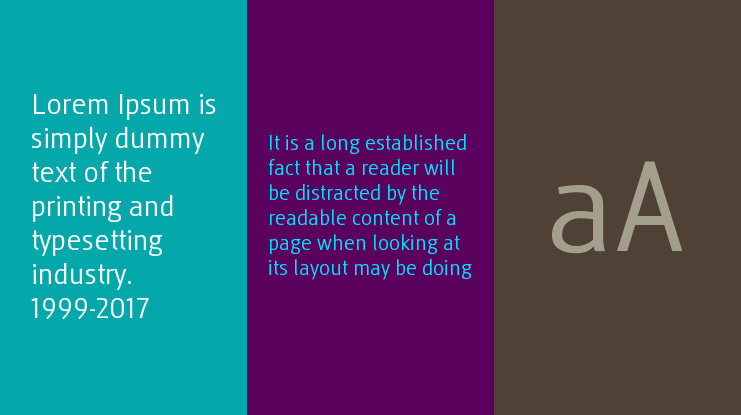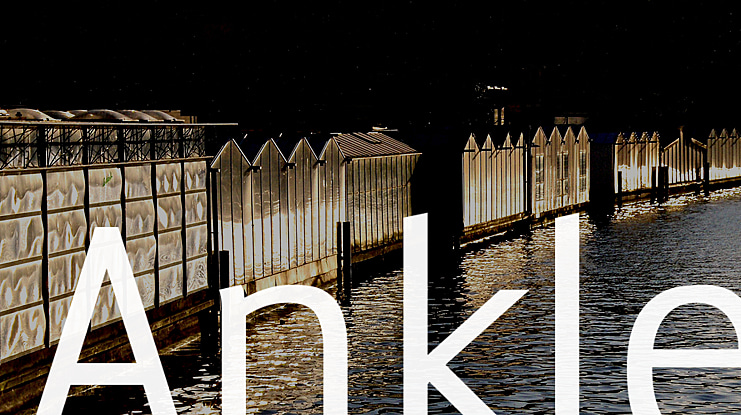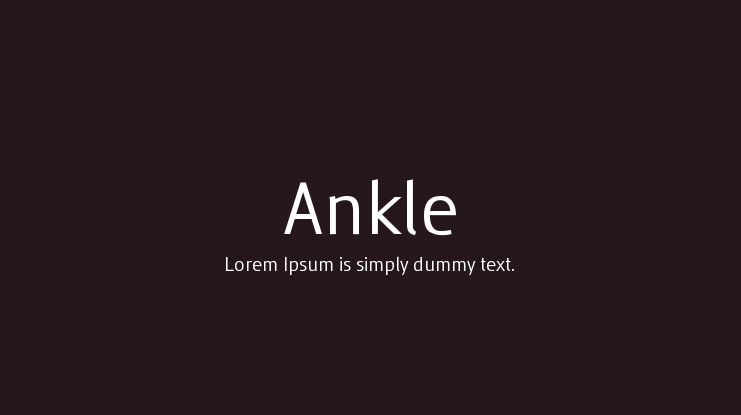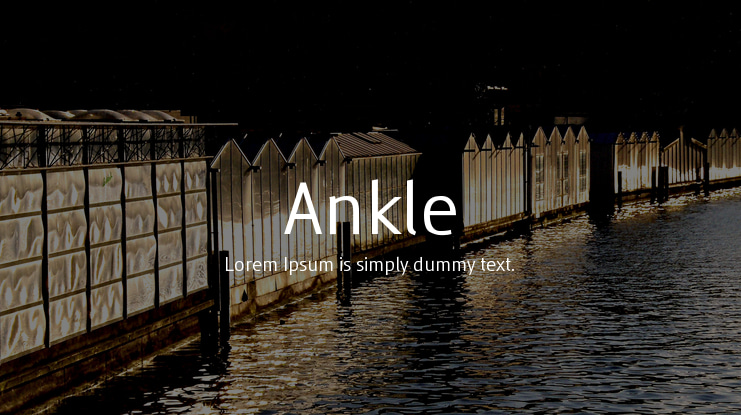
An elegant sans serif typeface with style. Fashionable, Classy but still Modern! Designed and shared by Vikers | RerdSystems. Perfect for Logos , Posters and more.